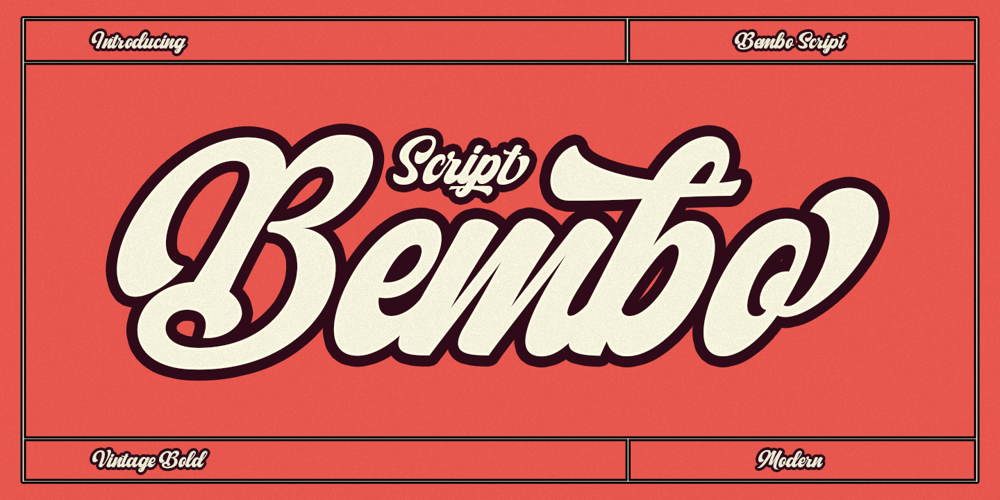
Bembo Script Font Family was designed by Has Rizal and published by Hrz Studio. Bembo Script contains 1 styles and family package options. Bembo is a script typeface with noble and vintage looks. It has serifs at the beginnings of the strokes, swash capitals and formal design. Bembo has lots of alternate characters, swashes and ligatures. It has also a bunch of tails with different shapes and widths to give the vintage logotype or sports look to your design.These alternates makes Bembo very versatile. You can design beautiful, elegant and diverse typographic elements with it. It’s well suited for logos, lettering artwork, t-shirt designs, editorial illustrations to name a few.